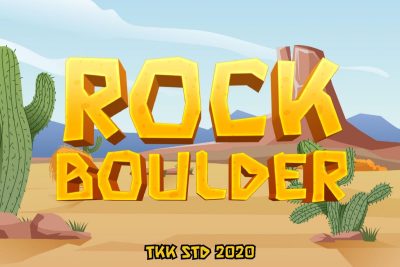
The Gaming Font Rock Boulder brings a playful and adventurous vibe to your designs. Perfectly crafted for kidsโ adventure themes, gaming projects, and bold branding, this font combines chunky letterforms with a lively design. Its vibrant and dynamic appearance ensures it captures attention while maintaining excellent readability. Whether youโre creating game titles, childrenโs merchandise, or colorful posters, this font delivers a powerful and engaging visual impact.
Moreover, the Gaming Font Rock Boulder exudes a sense of fun and exploration. Designers working on adventure-themed projects will appreciate its unique blend of energy and creativity. The bold strokes and playful details make it ideal for digital and print formats, ensuring consistent quality and appeal across all applications. Its ability to stand out while keeping designs accessible makes it a valuable tool for a variety of creative endeavors.
Gaming Font Rock Boulder, Versatile and Designed for Creative Adventures
The Gaming Font Rock Boulder offers exceptional versatility for various design needs. Its bold and lively design works beautifully for gaming interfaces, adventure-themed branding, and educational content. Additionally, its vibrant look makes it an excellent choice for childrenโs projects, such as activity books, animated titles, or event posters. The fontโs adaptable nature ensures it performs equally well on small screens, large-scale banners, or promotional displays.
In addition to its visual charm, this font allows designers to add a playful yet professional touch to their projects. Its carefully crafted details provide flexibility, making customization easy and effective. Whether youโre creating eye-catching logos, promotional materials, themed merchandise, or video thumbnails, this font will elevate your designs with a sense of adventure and excitement.
Finally, this font isnโt just a toolโitโs a creative companion that helps tell a story. By incorporating the Gaming Font Rock Boulder, you can evoke a sense of wonder and curiosity in your audience. Its ability to bring boldness and imagination together ensures your designs make a lasting impression. Whether youโre designing for kids, families, or gamers, this font gives your project a unique and memorable identity. Additionally, it enhances your ability to create dynamic visuals that resonate with your target audience, making it a must-have for creative professionals.